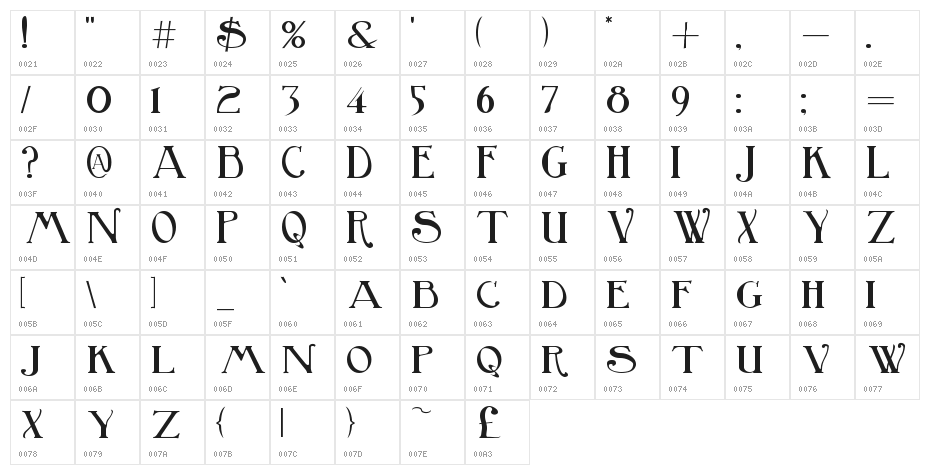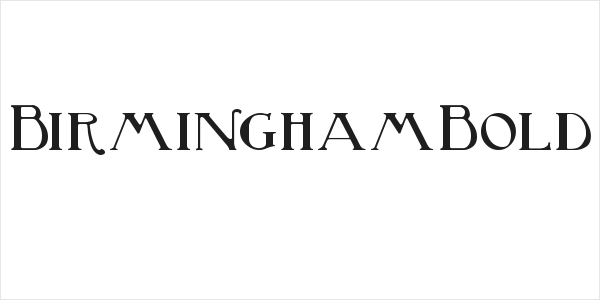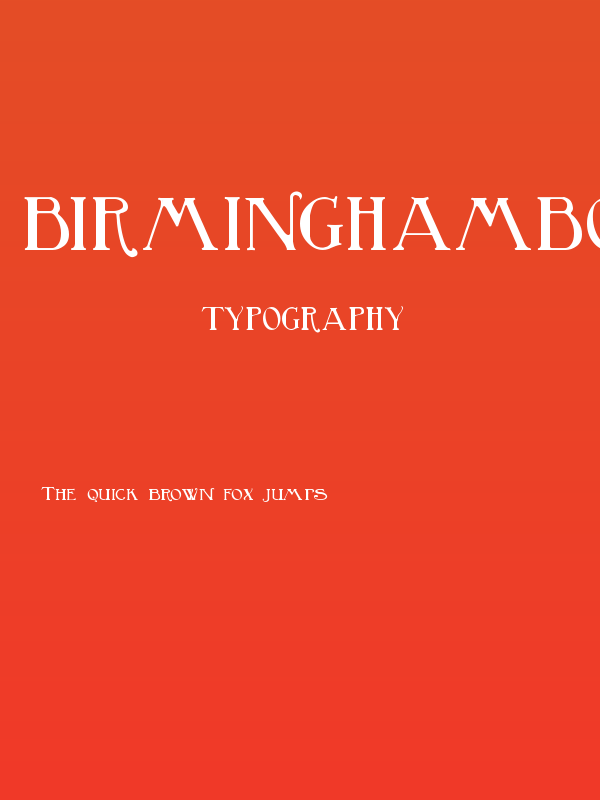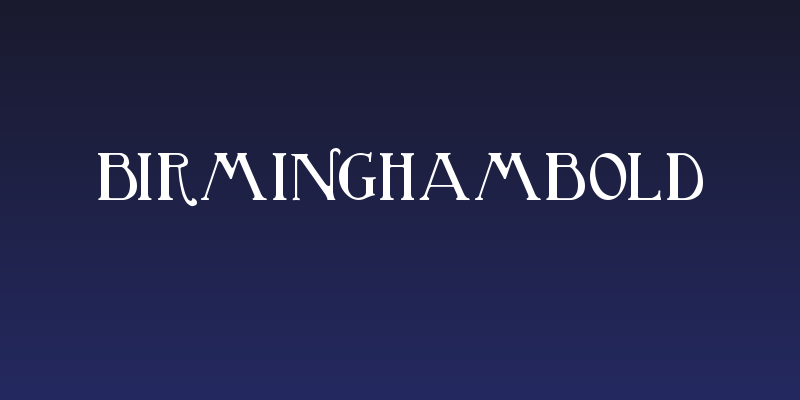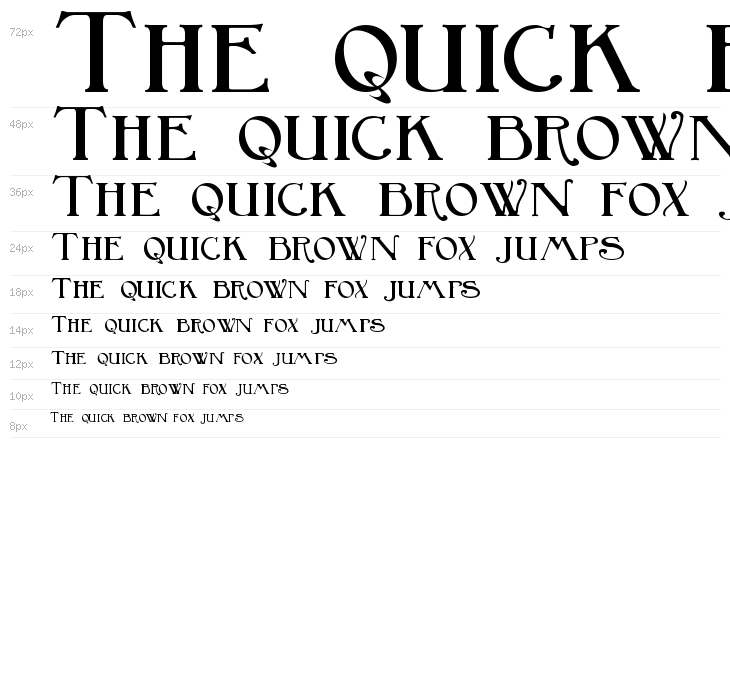
BirminghamBold Font
BirminghamBold Description
This font features a bold and distinctive style with a strong presence. The characters are elegantly crafted with a blend of sharp and smooth lines, giving it a unique and artistic flair. The uppercase letters have a classic yet modern appeal, while the lowercase letters maintain a consistent and harmonious design. The numerals are bold and clear, ensuring readability. Special characters are thoughtfully designed to match the overall aesthetic, making this font versatile for various applications.
| Proposed Projects | Ideal for branding, poster design, and headlines where a strong visual impact is desired. |